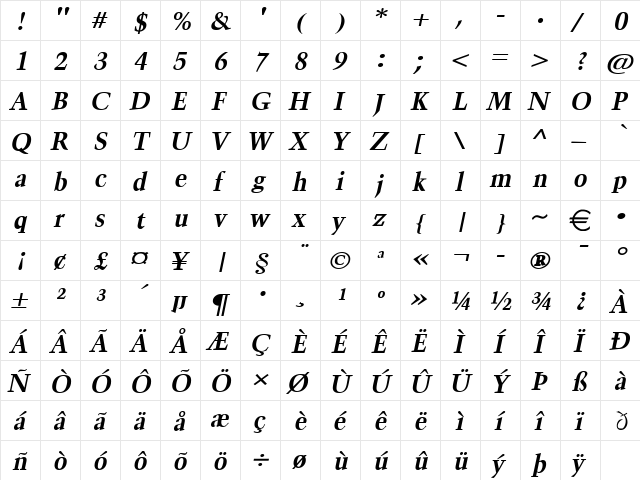
HornWide BoldItalic
Design Context for HornWide Typeface
HornWide takes a measured approach to typography — its balanced proportions and neutral character make it a reliable workhorse for both digital and print work. The dynamic lean of this cut emphasises speed and emphasis in any layout. The heavy weight commands attention and anchors typographic hierarchies.
Pro Tip: Use HornWide for emphasis, pull quotes, and subheadings where its slanted energy can add rhythm to the layout.